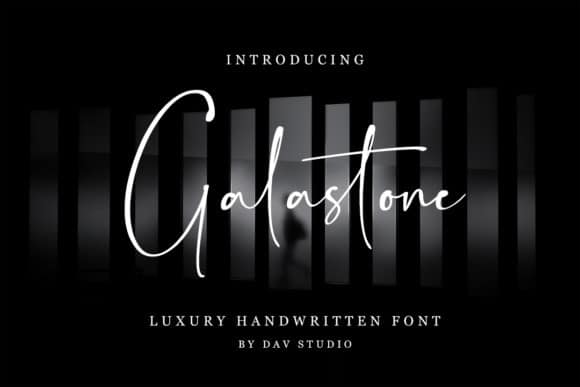
Galastone Handwritten Font
Galastone is a luxury handwritten font.
It is perfect for branding, invitations, watermarks, photography, labels and movie posters.